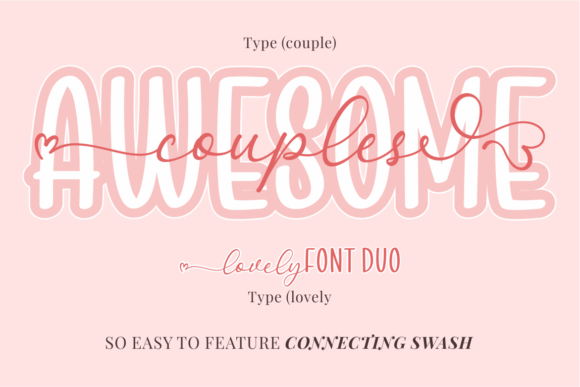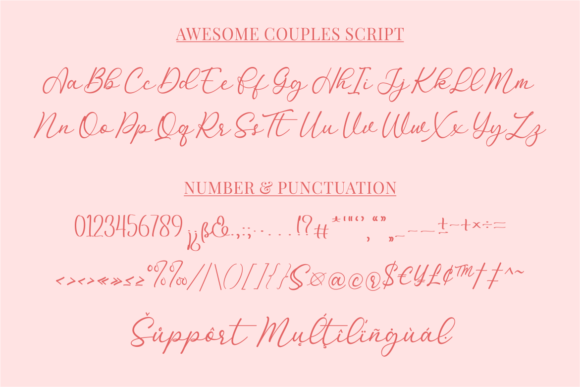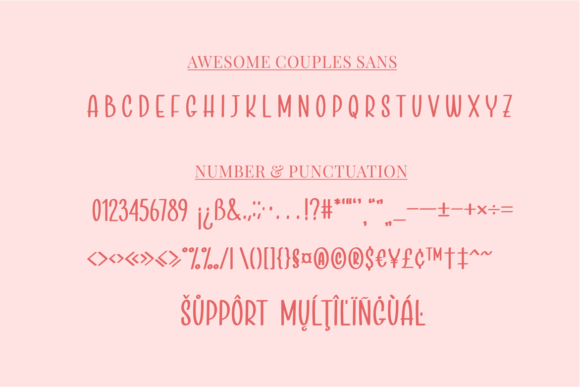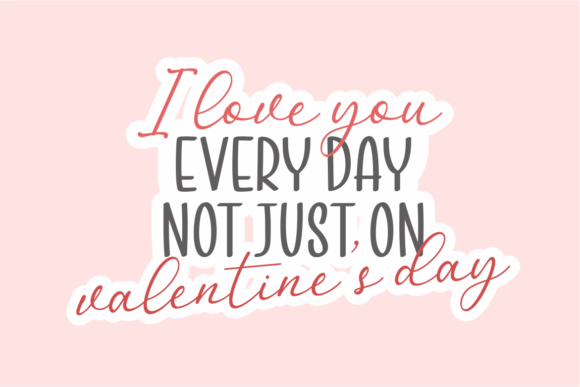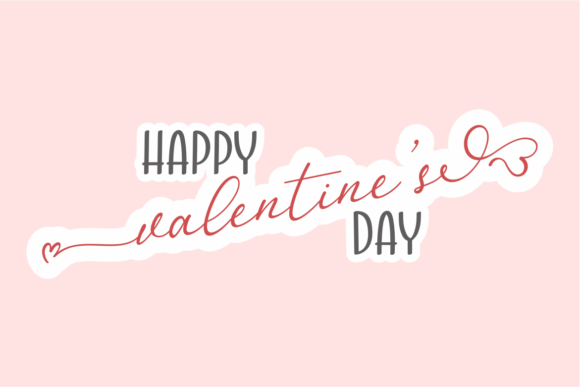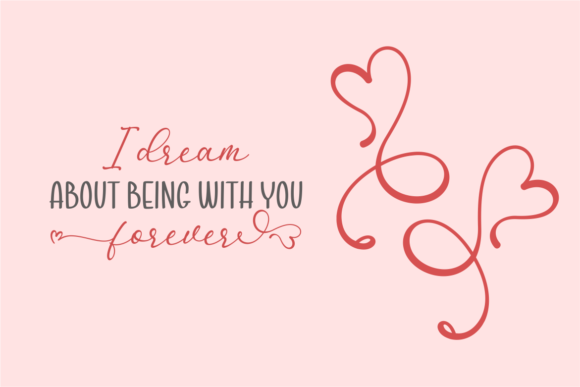
The Perfect Pair: Unleashing the Magic of Awesome Couples Font
There’s something special about crafting the perfect design for a loved one – whether it’s a heartfelt birthday card or a wedding invitation that sets the tone for a lifetime of love and laughter. As designers, we know that the right font can make all the difference in conveying our emotions and creativity. That’s where Awesome Couples Font comes in – a stunning, delicate handwritten duo font that’s sure to add a touch of romance to any project.
Whether you’re a seasoned pro or just starting out, Awesome Couples Font is an invaluable addition to your design toolkit. Its versatility and charm make it perfect for a wide range of applications, from greeting cards to eye-catching headlines. With this spectacular font, you’ll be able to bring a little extra magic to your designs and make them truly unforgettable.
Awesome Couples Font Key Features
- Font Family: Awesome Couples Font offers a unique and playful font family with multiple styles and weights.
- Unique Characteristics: The font features adorable couple-themed characters, making it perfect for Valentine’s Day, wedding invitations, and other love-themed designs.
- Characters: Includes a wide range of characters, including uppercase and lowercase letters, numbers, punctuation marks, and special characters.
Awesome Couples Font Review
I have to say, I was pretty excited to dive into the Awesome Couples Font. It’s a font designed specifically for couples, and I’m always up for trying something new and unique. ✨ The first thing I noticed was the playful, cursive feel of the font. It’s perfect for adding a touch of romance to any design project.
The font is available in a range of styles, from casual to elegant, which makes it super versatile. ✨ I also appreciated the attention to detail that the designers put into creating a matching “un-love” font, which is a fun touch for any couple looking to poke fun at their relationship.
While the Awesome Couples Font is a great addition to any designer’s toolkit, there are a few limitations to consider. ⚠️ One of the main issues I had was with the font’s legibility at smaller sizes. It can be a bit difficult to read, especially for those with vision impairments.
Overall, I think the Awesome Couples Font is a great choice for designers looking to add a little romance to their projects. While it may have some limitations, the font’s unique feel and playful style make it a standout choice. ✨ Just be sure to use it in the right context, and you’ll be golden.
Recommendations
- Use the font at larger sizes to ensure maximum legibility
- Consider pairing the font with a more traditional sans-serif font for contrast
- Have fun with the “un-love” font – it’s a great way to add some humor to your designs!
Tips for Getting the Most Out of Awesome Couples Font
Use Awesome Couples Font for romantic or love-themed designs, such as wedding invitations, valentines, or couple portraits. Experiment with different font sizes and colors to create a visually appealing design. Combine with other fonts to create a unique and eye-catching look.
Awesome Couples Font is ideal for:
- Valentine’s Day cards and gifts
- Couple portraits and photography
- Love-themed social media graphics
Alternatives to Awesome Couples Font
Couple Sans
Couple Sans is a modern sans-serif font designed specifically for couples and romantic relationships. It features a clean and minimalist design, making it perfect for wedding invitations, love letters, and other romantic communications. Compared to Awesome Couples Font, Couple Sans has a more straightforward and elegant look, which may be more suitable for formal or traditional designs.